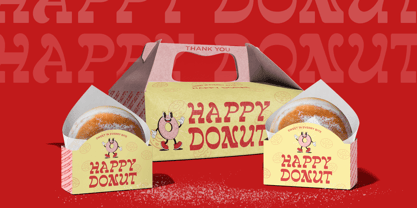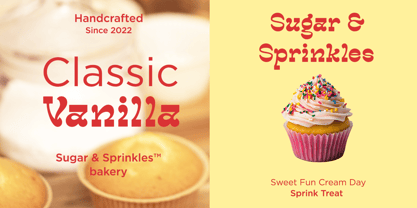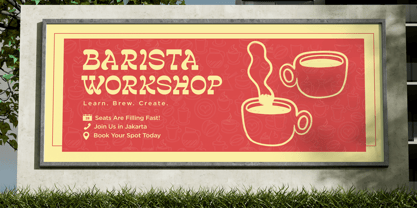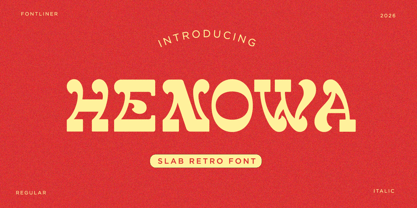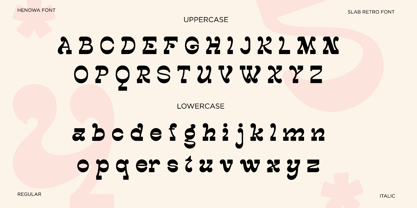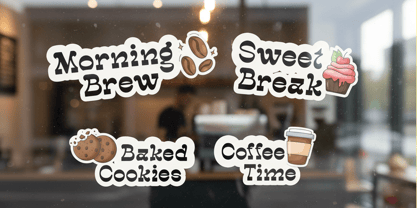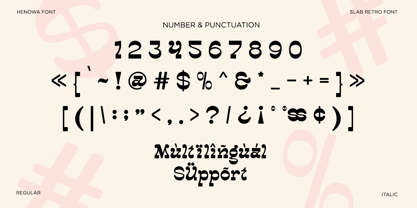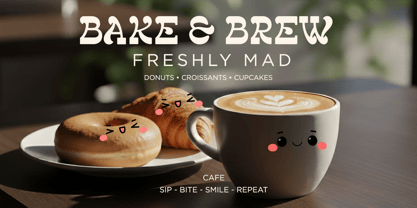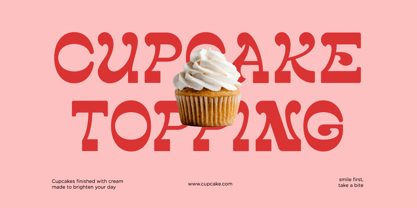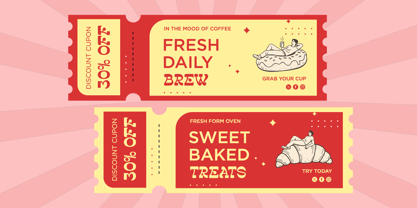
Henowa
by Font Liner
Henowa is a bold slab retro typeface inspired by vintage signage, classic advertising, and nostalgic typography from the golden era of design. Crafted with chunky letterforms, playful curves, and a strong visual rhythm, Henowa delivers a warm retro character that instantly captures attention while maintaining excellent readability across various design formats. Perfect for branding designers, merch creators, creative studios, and marketing teams, Henowa provides a powerful typographic solution for retro-driven visual communication. From logo design and packaging to posters, t-shirts, and product labels, as well as café branding, streetwear identity, social media campaigns, and vintage-style advertisements, this font brings bold personality, cheerful energy, and timeless charm to every project. Whether you're working on nostalgic branding, retro packaging, music posters, café menus, merchandise, festival promotions, or bold editorial layouts, Henowa helps your designs stand out with playful confidence and authentic retro aesthetics. Its slab structure and expressive shapes ensure strong visual impact while maintaining versatility for both print and digital media. Thank You, Have a Good Day! FontLiner